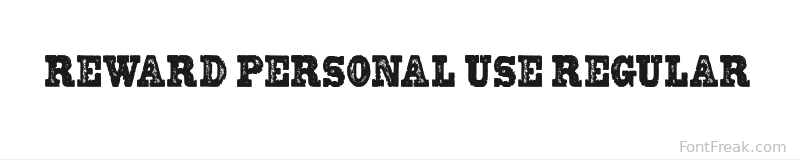
REWARD PERSONAL USE Regular
About REWARD PERSONAL USE Regular
The REWARD PERSONAL USE Regular font, created by Billy Argel Fonts, is a captivating display typeface that exudes a rustic charm. As a decorative font, it features bold, blocky letterforms that are both striking and highly readable. This font showcases a medium stroke weight with noticeable contrast, giving it a robust appearance while maintaining legibility. The slightly uneven edges add a touch of handcrafted flair, making it ideal for various creative applications.
One of the standout characteristics of REWARD PERSONAL USE Regular is its generous letter spacing, which enhances readability and gives the text an open feel. This quality makes it an excellent choice for wedding invitations, where elegance and clarity are paramount. Additionally, its distinctive style works well for movie posters, capturing the audience's attention with its dynamic presence. Small business owners can utilize this font for restaurant menus, adding a touch of personality that reflects their brand’s character. Content creators will find it suitable for social media graphics, where eye-catching typography can elevate engagement.
The target audience for this font includes graphic designers, small business owners, and content creators looking to enhance their visual projects. With its unique blend of boldness and charm, the REWARD PERSONAL USE Regular font free download provides an accessible option for those seeking distinctive typography without the expense.
What sets the REWARD PERSONAL USE Regular apart is its ability to convey a sense of authenticity and creativity, making it a versatile addition to any designer's toolkit. Whether you're crafting a heartfelt invitation or designing promotional materials that demand attention, this font delivers a memorable impact that resonates with its audience.